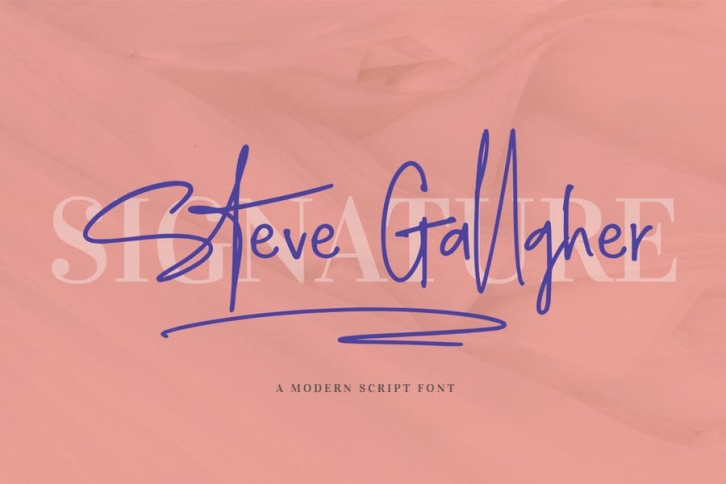
Introducing Steve Gallagher a modern script font with signature style. Get the new ‘Signature Font Style’ handwritten font - A stylish and natural font created to look as close to natural handwriting as possible by including over 47 carefully natural-looking OpenType ligatures, and 10 swashes to makes this font more look like a naturally signature.